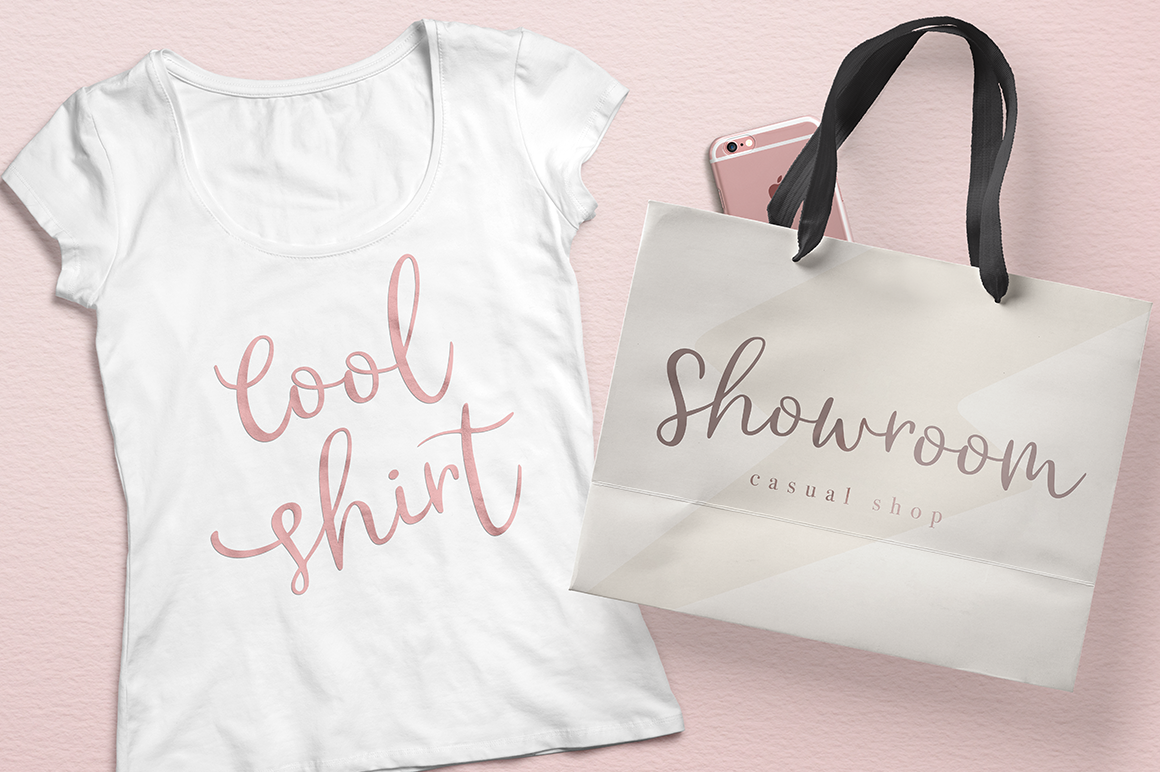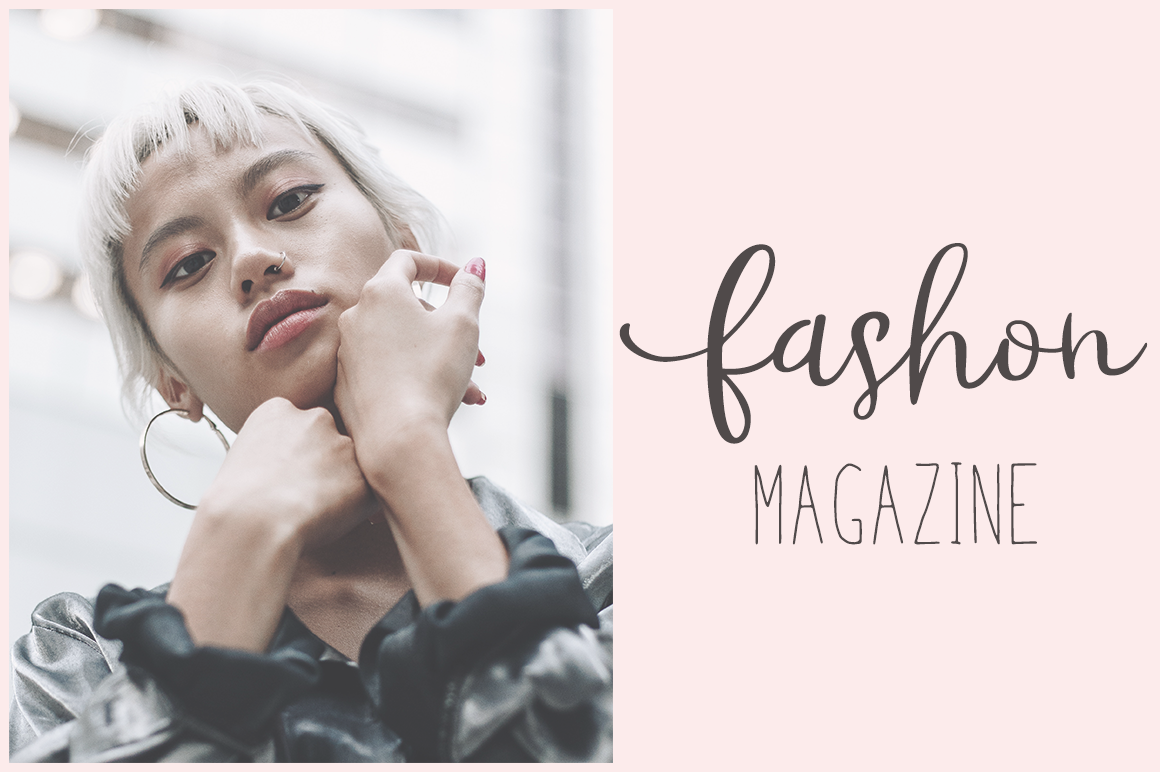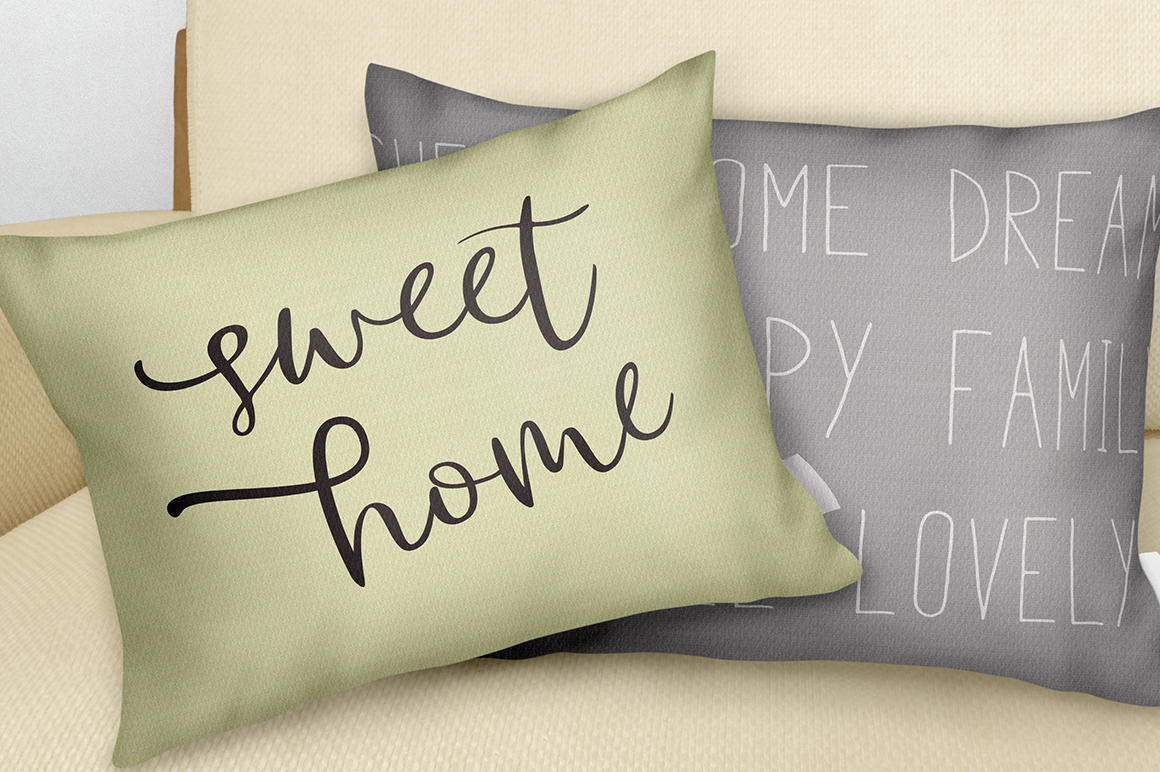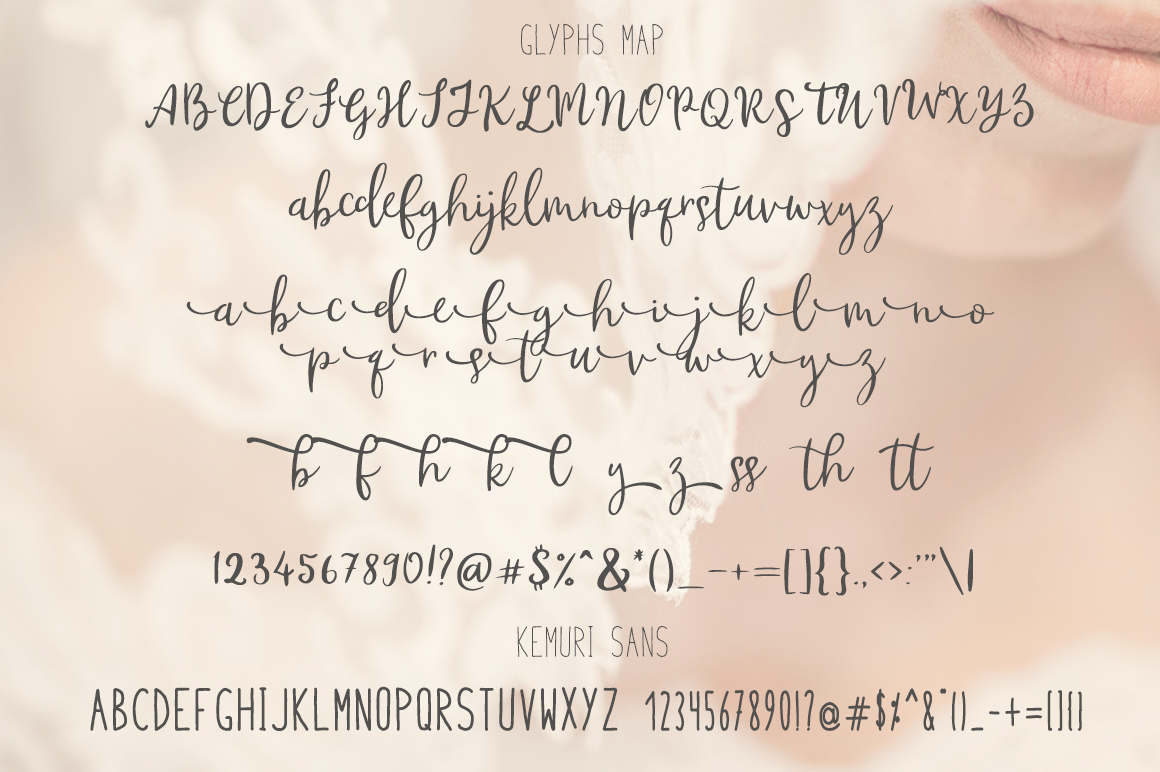
Introduction to Paradise Script Font
Paradise is a stunning and easy handmade calligraphy font; perfect for adding a rustic yet feminine quality to your designs, Paradise is multipurpose and ideal for anchoring your projects or designs in a charming way.
Key Features of Paradise Script Font